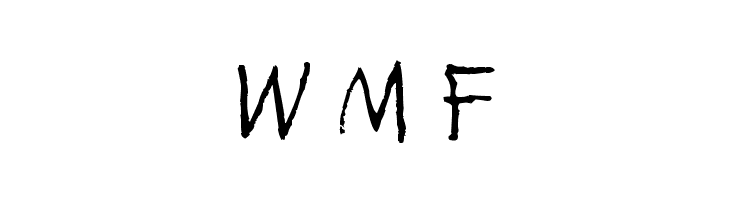
A playful, handwritten font with an informal and approachable style.
A bold, Gothic-style font with intricate, decorative details.
A bold, decorative font with a zebra-like pattern and playful style.
A bold, playful font with a dotted texture and hand-drawn style.
A bold, decorative font with outlined characters and strong contrast.
A bold, hand-drawn font with a grunge and rebellious aesthetic.
A whimsical, hand-drawn font with irregular, playful strokes.
A hand-drawn, sketch-like font with an energetic and casual style.
A hand-drawn, textured font with a playful and casual style.
A distressed, hand-drawn font with tall, narrow characters and a unique, organic texture.
A hand-drawn, playful font with irregular strokes and an artistic flair.
A playful, hand-drawn font with bold, rounded strokes and a whimsical charm.
A playful, hand-drawn font with bold outlines and irregular shapes.
A bold, graffiti-inspired font with an expressive, hand-painted style.
A playful, handwritten font with uneven strokes and a casual style.
A playful, hand-drawn font with bold, wavy outlines and a cartoonish style.
A hand-drawn, sketch-like font with playful and informal characteristics.
A bold, textured font with a distressed, vintage appearance.
A bold, distressed font with a rugged, vintage appearance.
A bold, distressed font with a grunge texture and strong impact.
A distressed, grunge-style font with a bold, textured appearance.
A bold, playful font with thick outlines and a cartoonish style.
A bold, blackletter-style font with ornate flourishes and strong, angular strokes.
A bold, distressed font with a vintage, rugged style.
A bold, gothic-style font with intricate flourishes and a medieval aesthetic.
A bold, hand-drawn font with a textured, graffiti-like appearance.
A bold, decorative font with a playful, hand-drawn style and textured interiors.
A bold, hand-drawn font with irregular, jagged edges and high contrast.
A bold, rounded font with a playful and chunky style.
A playful, hand-drawn font with bold, uneven strokes and a whimsical feel.
A lively, handwritten font with irregular strokes and a playful, dynamic style.
A hand-drawn, distressed font with a grunge aesthetic and dynamic style.
A bold, hand-drawn font with an artistic and playful style.
A whimsical, hand-drawn font with a playful and informal style.
A tall, narrow font with a distressed, vintage texture.